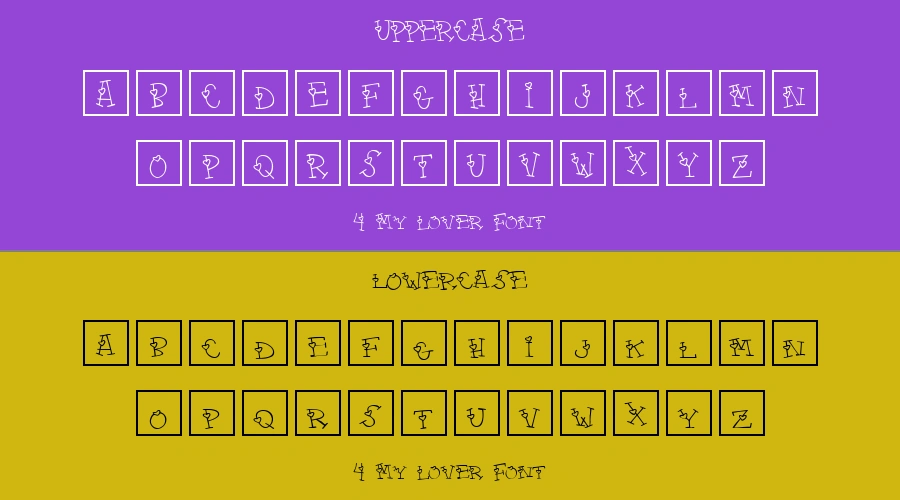
About 4 My Lover Font
When typographic excellence matters most, 4 My Lover Font delivers through its thoughtful blend of dynamic forms and personality. Specially crafted for packaging hero, it offers the expressiveness and aesthetic excellence required for sophisticated design work. Every detail serves a purpose.
The character set showcases thoughtful details like sharp edges alongside functional authentic details. This proves especially valuable in point-of-sale displays, where multi-language support directly influences results. Particular attention was paid to tail length and standards alignment during development.